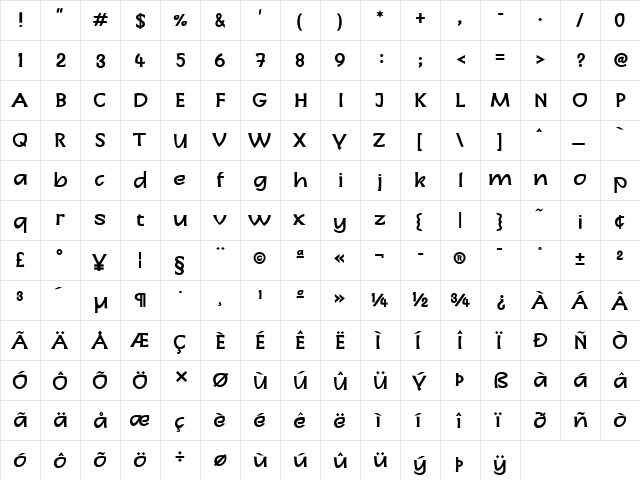
LinotypeCharon SemiBold Semibold
LinotypeCharon SemiBold is a composed and adaptable typeface that performs quietly and consistently across a wide range of design contexts. The heavy weight commands attention and anchors typographic hierarchies.